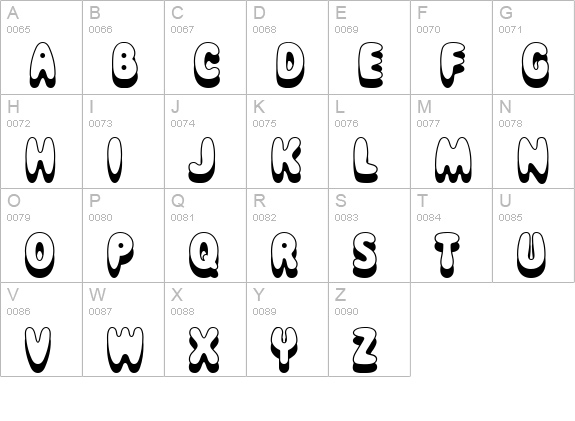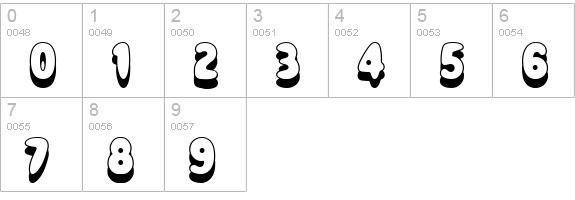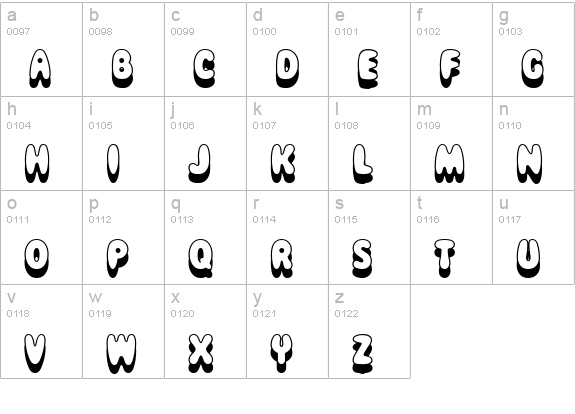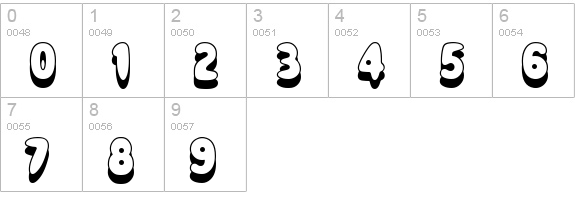
Magical Mystery Tour Outline Shadow Font Details
Introducing the enchanting Magical Mystery Tour Outline Shadow font, a captivating typeface that is sure to add a touch of mystique and wonder to any design project. This unique font features an intricate outline design with a subtle shadow effect, creating a mesmerizing visual effect that will captivate your audience. With its whimsical and magical appearance, the Magical Mystery Tour Outline Shadow font is perfect for a wide range of design applications. Whether you're creating invitations for a fantasy-themed event, designing a mystical book cover, or adding a magical touch to your website, this font is sure to make a lasting impression. What makes the Magical Mystery Tour Outline Shadow font even more appealing is that it is freely available to download at FontsMarket.com. No need to worry about breaking the bank to access this captivating typeface – simply visit FontsMarket.com and start using it in your designs today. With its easy-to-read yet captivating design, the Magical Mystery Tour Outline Shadow font is suitable for both print and digital media. Its intricate details and subtle shadow effect make it stand out from the crowd, ensuring that your designs will leave a lasting impression. So, if you're looking to add a touch of magic and mystery to your next design project, look no further than the Magical Mystery Tour Outline Shadow font. Download it for free at FontsMarket.com and let your creativity soar as you explore the endless possibilities this enchanting typeface has to offer.